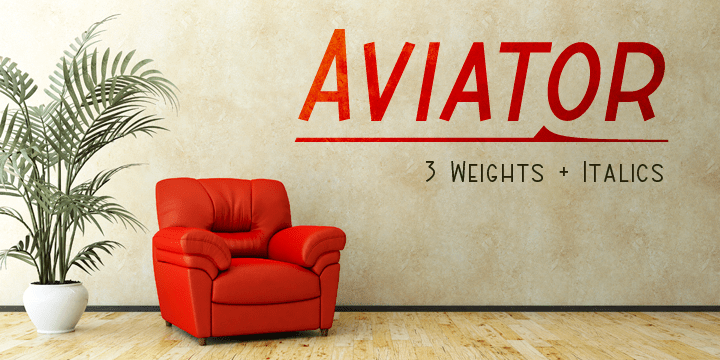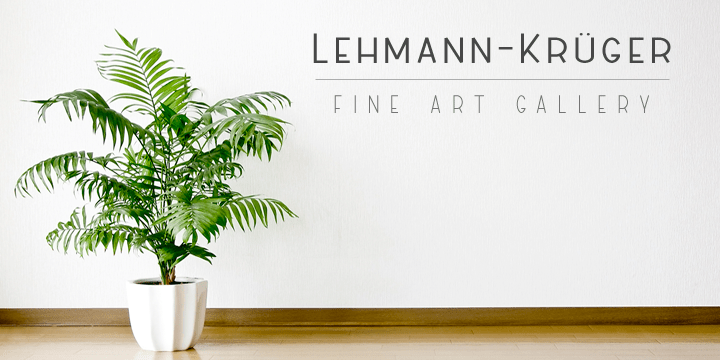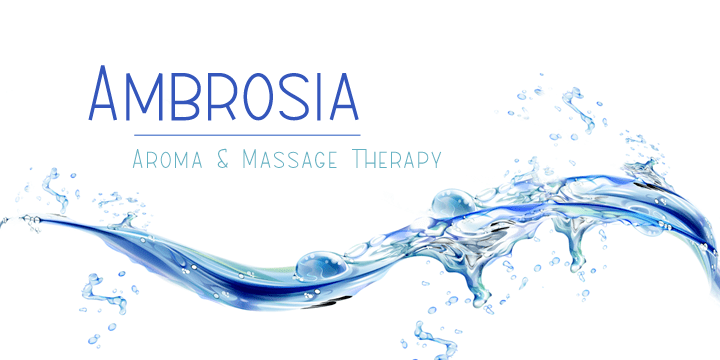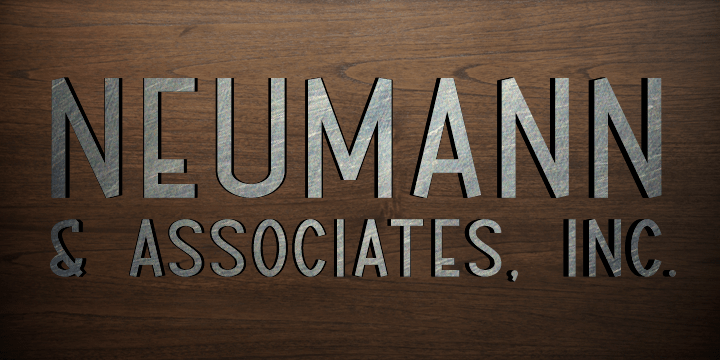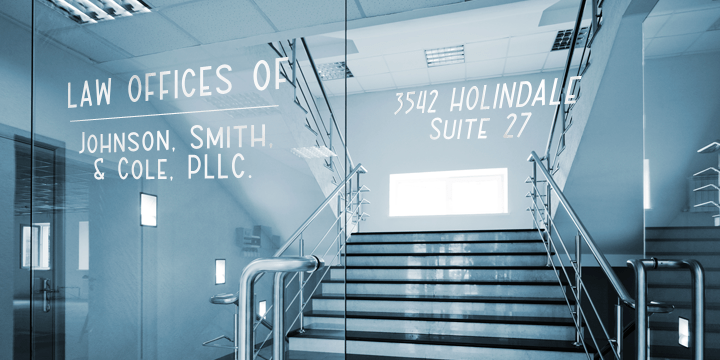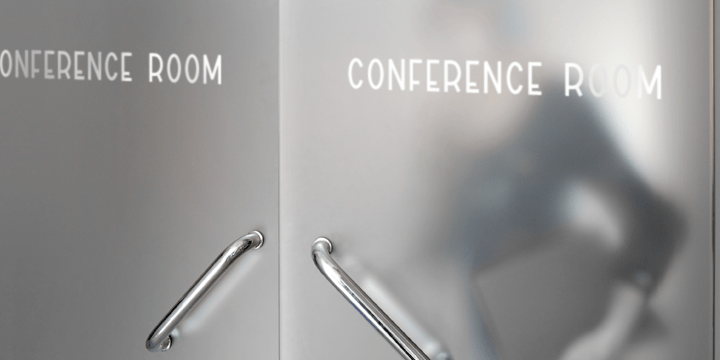
ABTS Aviator
Font Family by Albatross
ABTS Aviator is a font inspired by the 1950s and mixed with letterforms of the Art Deco era of design. It's simple, yet stylish and modern, yet retro. A nice mix of personality and geometry allowing for a variety of applications.